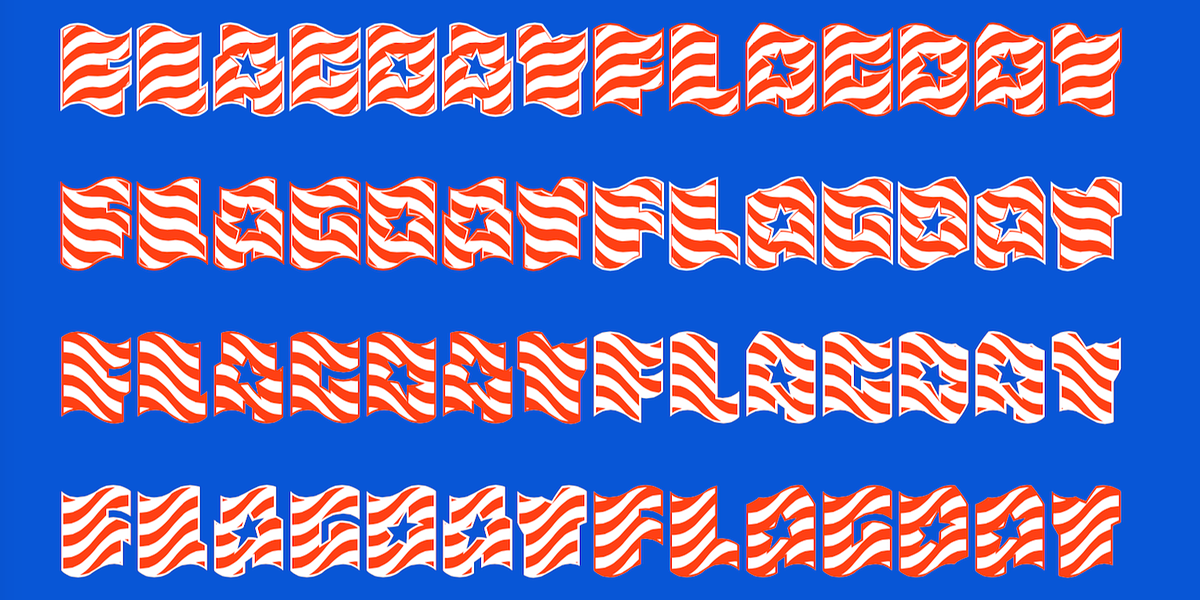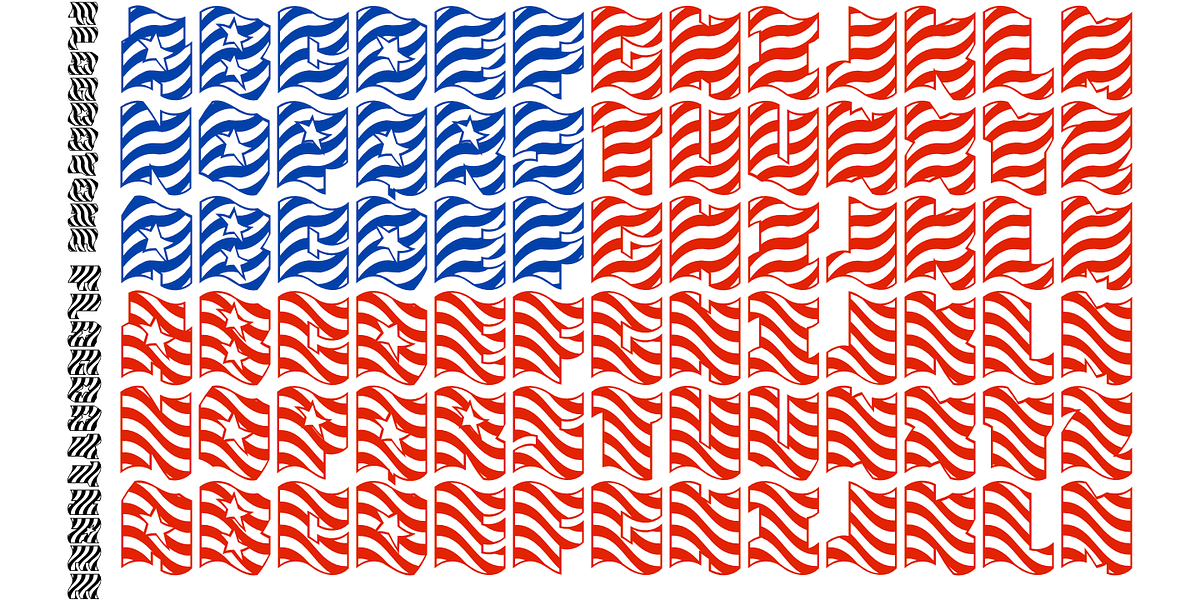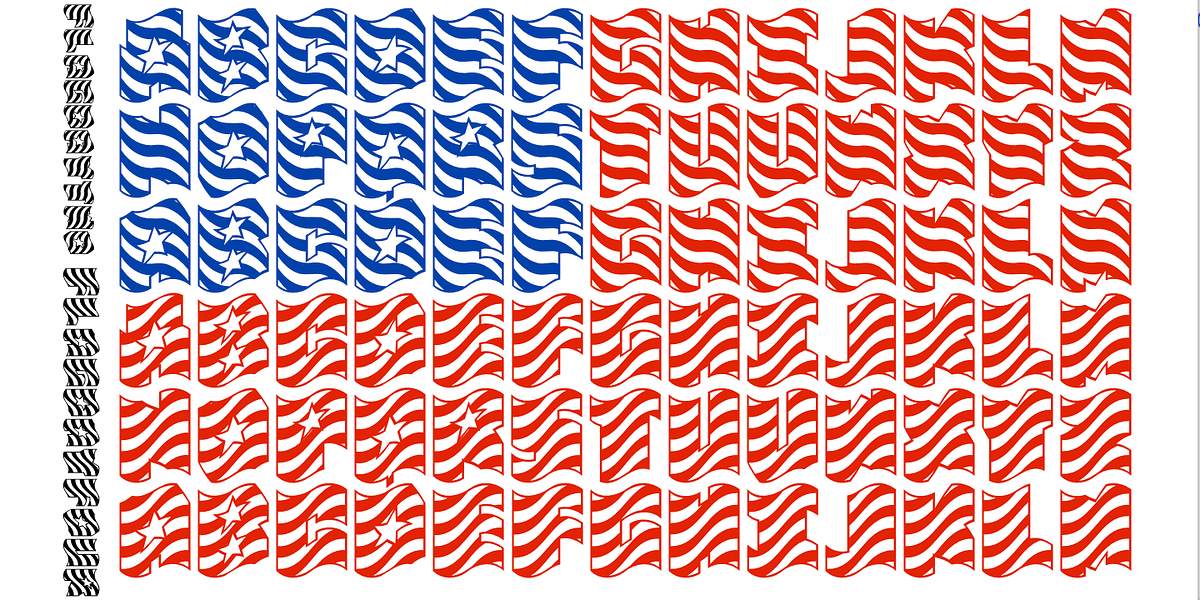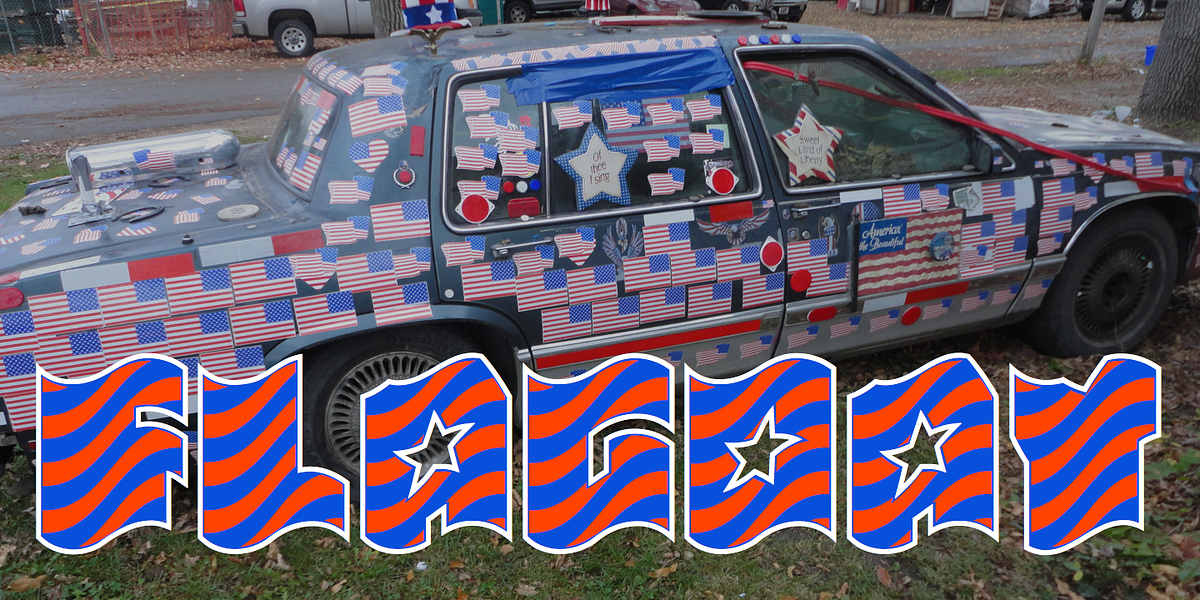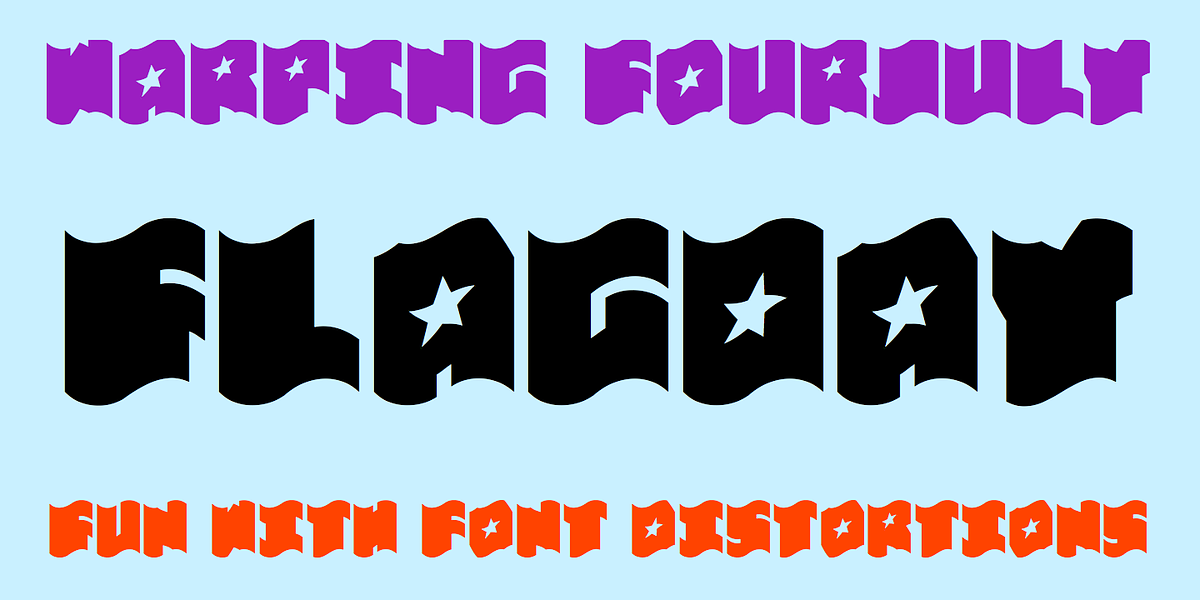
Flag Day
This font is designed to resemble American flags and is meant for visual impact rather than readability. It comes in solid and outline styles that can be layered for a multi-colored effect.